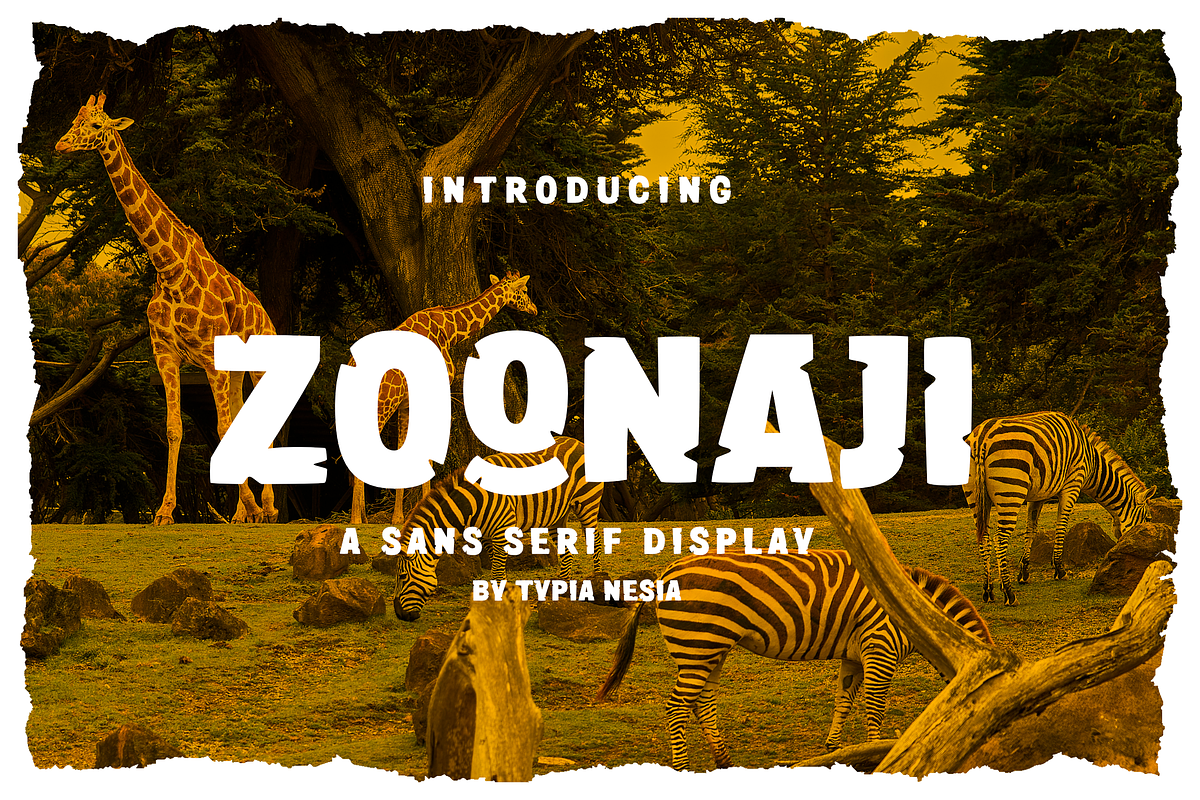
The Zoonaji Font Free Download is a modern, stylish typeface that offers a unique blend of geometric design and bold character. Perfect for branding, logos, social media graphics, posters, and any project that needs a fresh, contemporary look, this font brings a bold and clean presence to your designs.
With its strong lines and versatile design, Zoonaji is great for both headings and body text. It includes uppercase and lowercase letters, numbers, punctuation, and multilingual support, making it suitable for a variety of creative applications.